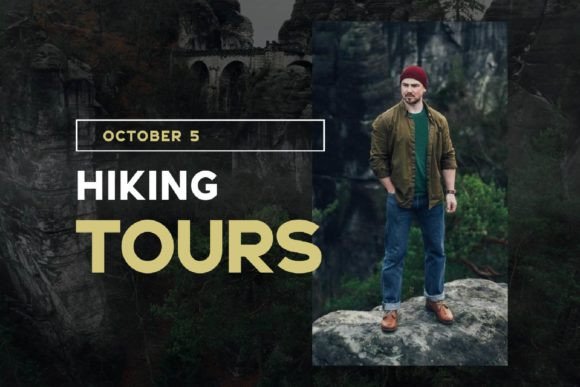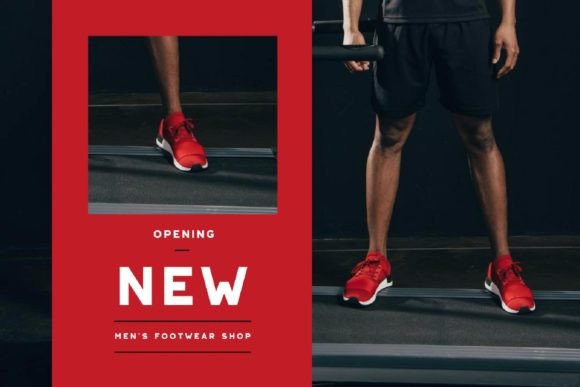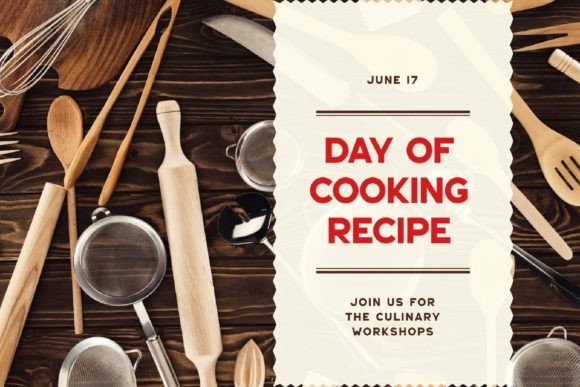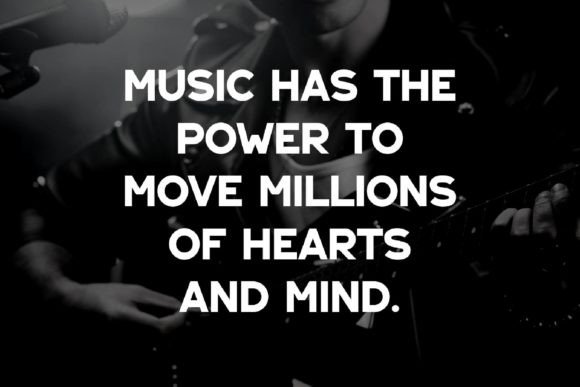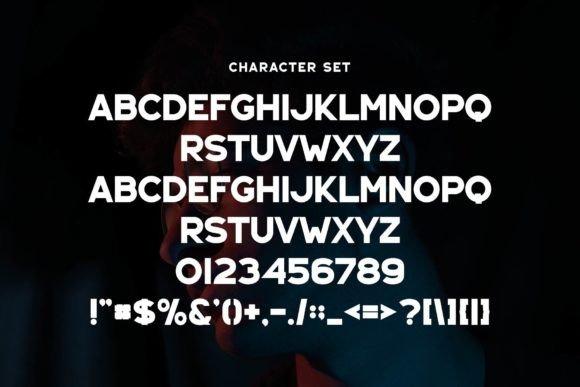
Introduction to Redick Font
Redick Sans Font Typeface inspired by the famous minimalist logo perfect for the purposes of designing templates, brochures, videos, advertising branding, logos, invitation, layout design, elegant crafting, beauty design and other.
Key Features of Redick Font